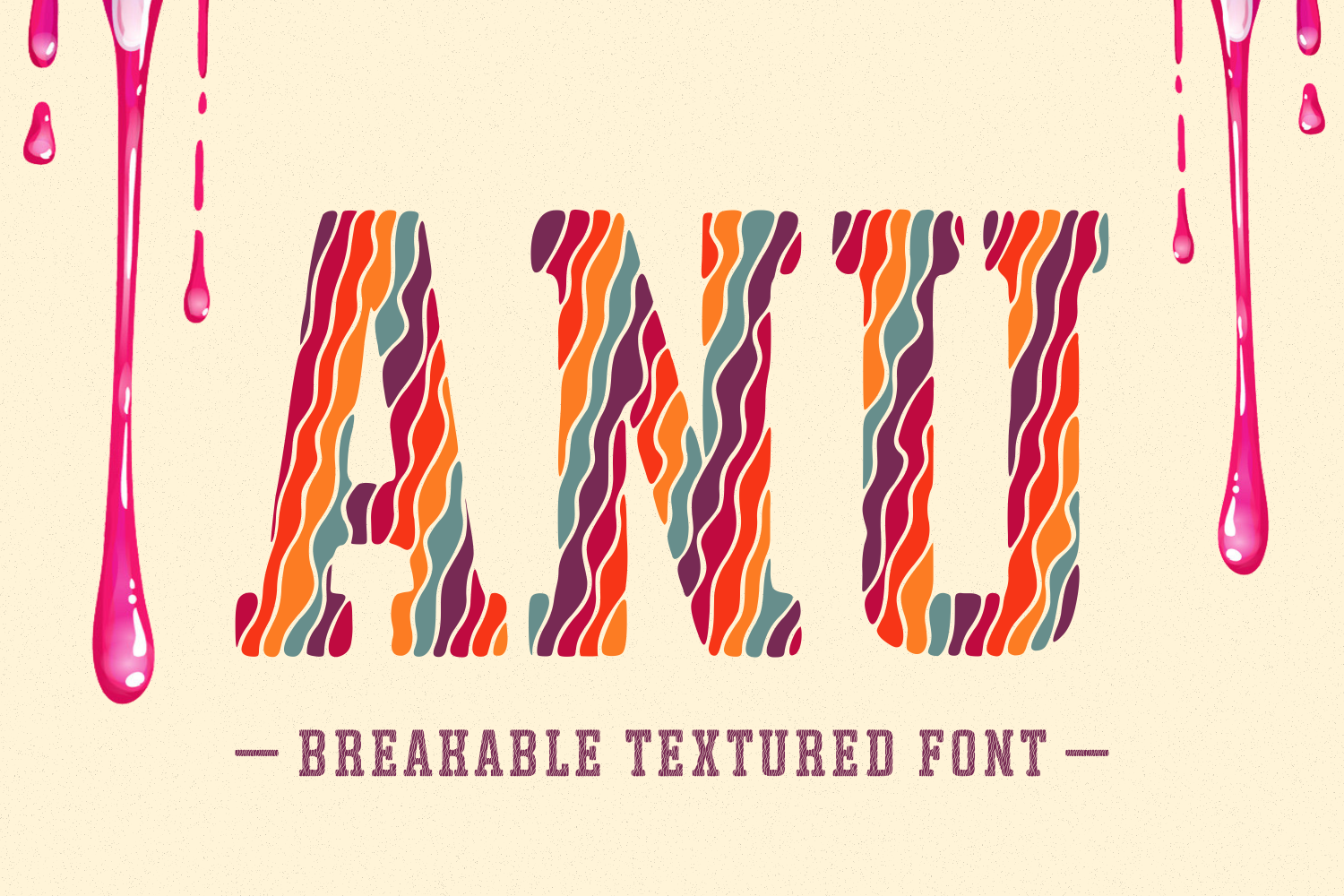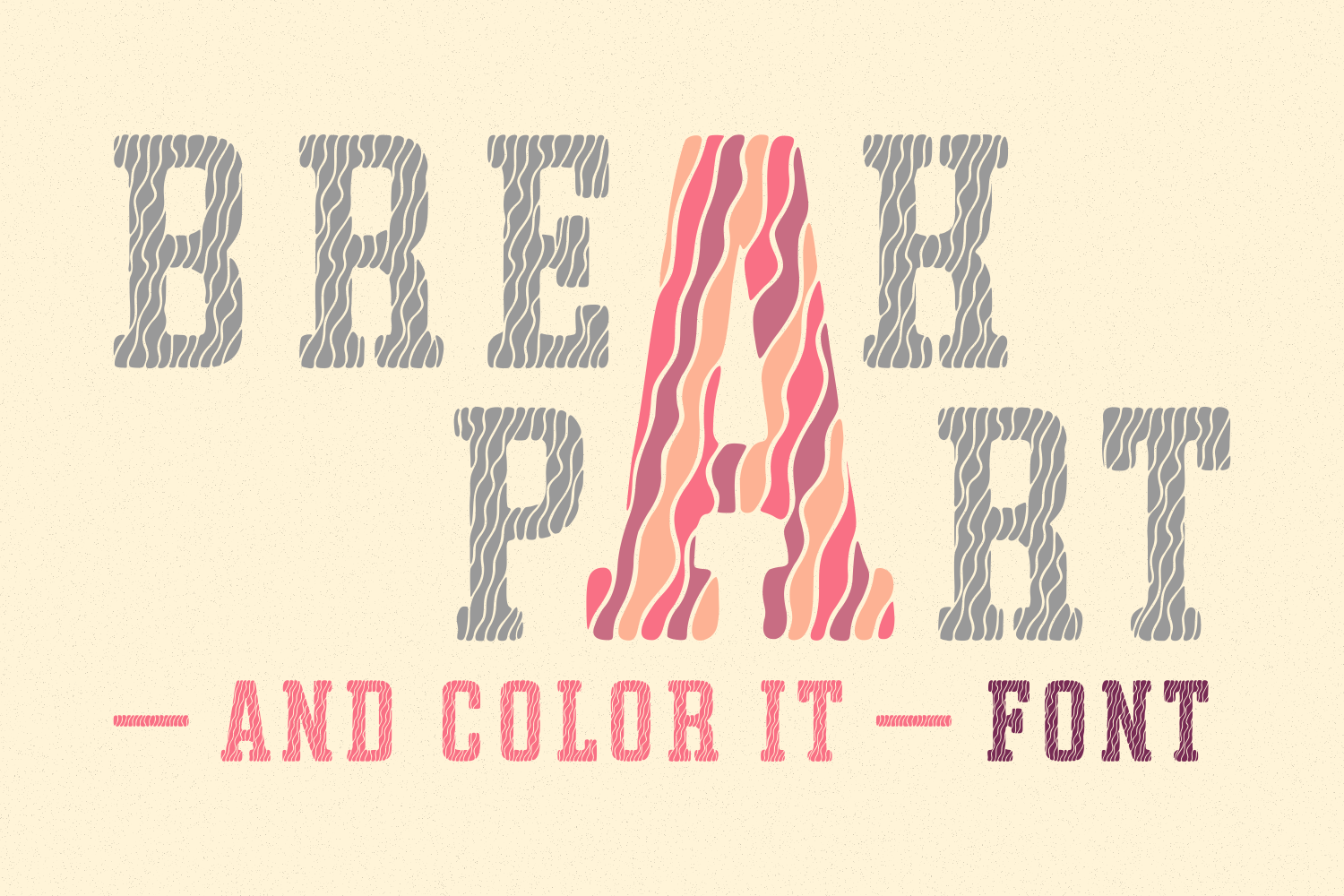
Anu Free Font
The Anu free font is a wild display font. It has an amazing flowing texture. Each character is breakable, so you can color each layer with your favorite colors. This font is perfect for creating unique designs with a striking touch. You can buy the full version here.
In Indonesian, Anu is a word with unlimited meaning. Anu can be meant “I Love you” or anything.